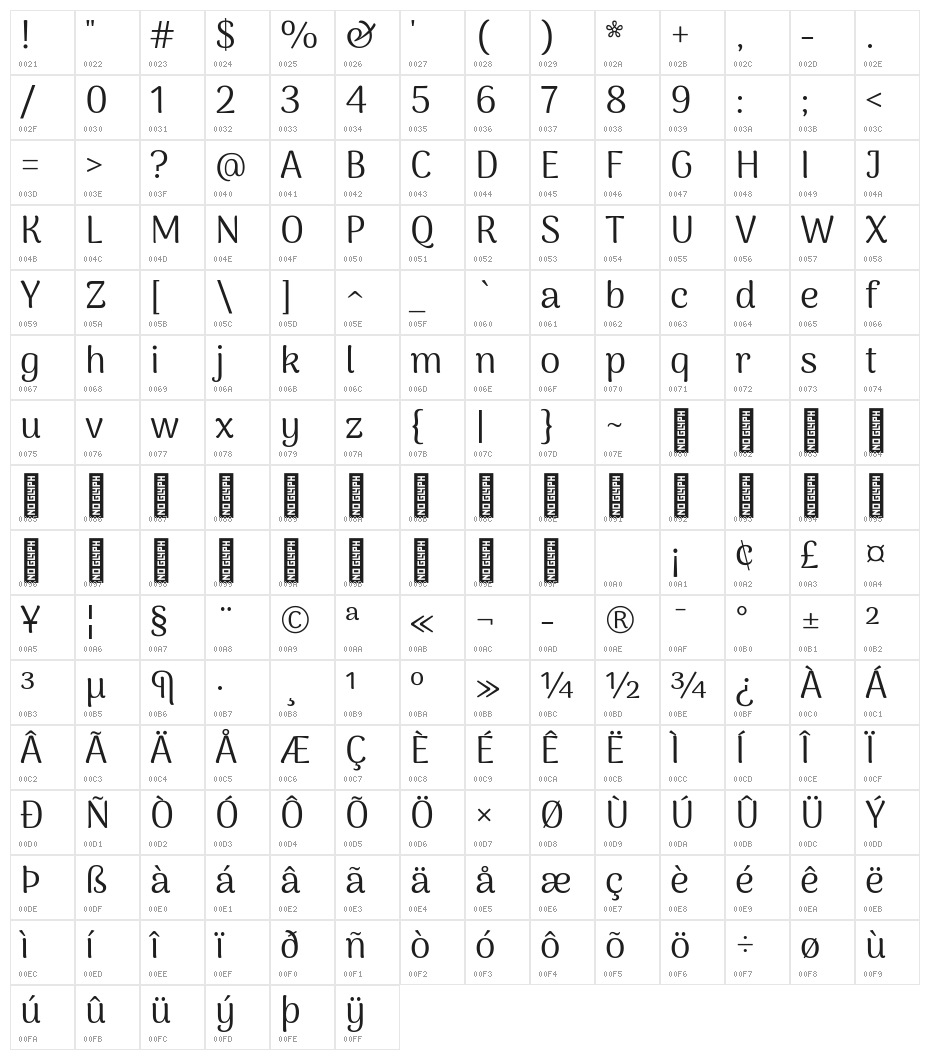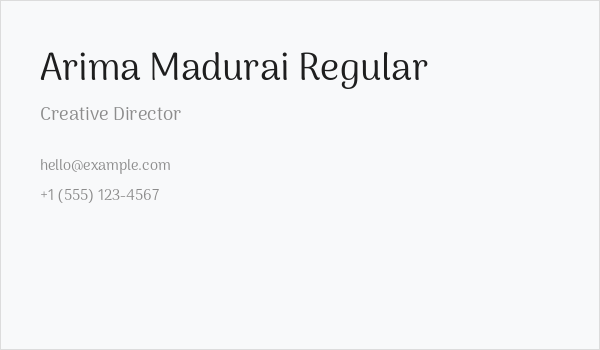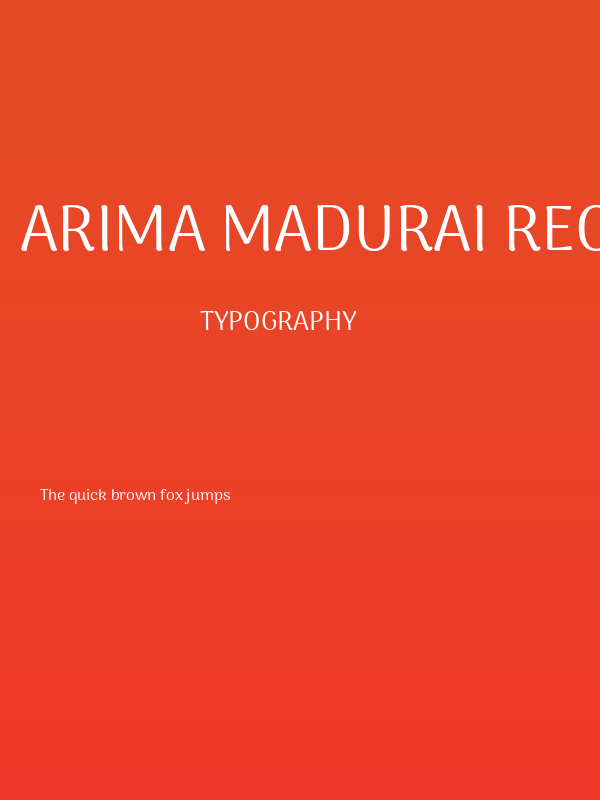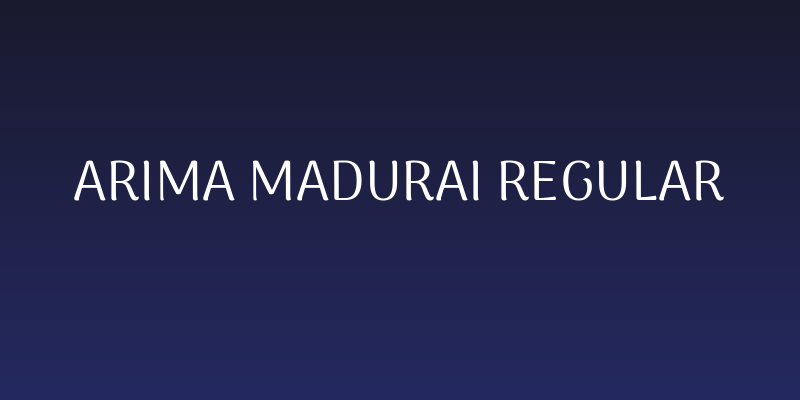
Arima Madurai Regular Font
Arima Madurai Regular Description
This typeface features a clean and modern design with rounded edges and a friendly appearance. The characters are evenly spaced, providing excellent readability. The uppercase letters are slightly taller than the lowercase, giving a balanced look. The numerals are clear and distinct, ensuring they stand out in any context. Special characters are well-integrated, maintaining the overall aesthetic. This font is versatile, suitable for both digital and print media, and can be used in various design projects.
| Proposed Projects | Ideal for branding, web design, advertising, and editorial projects where a friendly and approachable look is desired. |